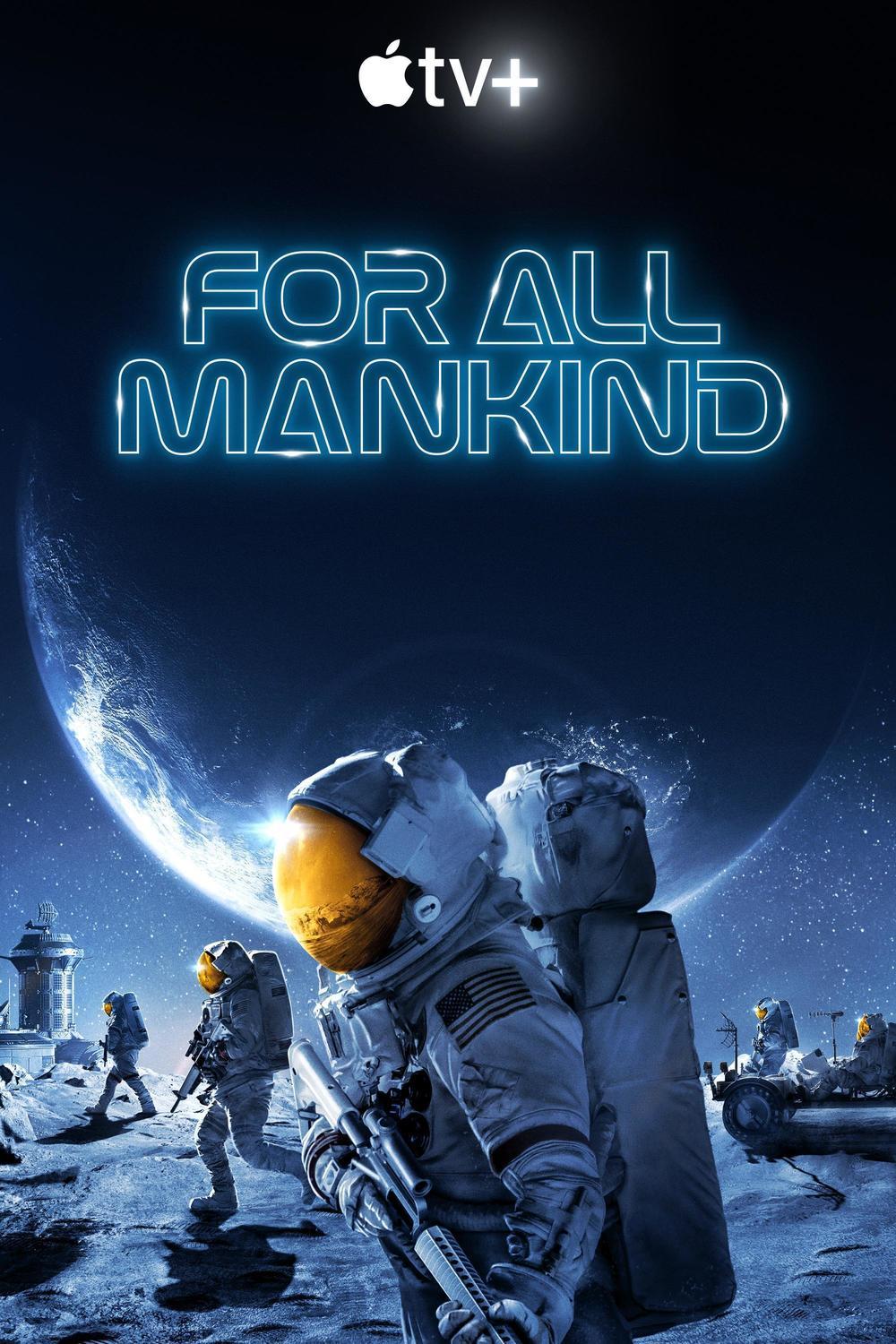
For All Mankind Font
Fonts in UseFor All Mankind is a science fiction drama series that imagines an alternate history where the Soviet Union won the space race and America's space program continued beyond the Apollo missions. It is a streaming television series that is exclusive to Apple TV+, created by Ronald D. Moore, and stars Joel Kinnaman, Michael Dorman, and Sarah Jones.